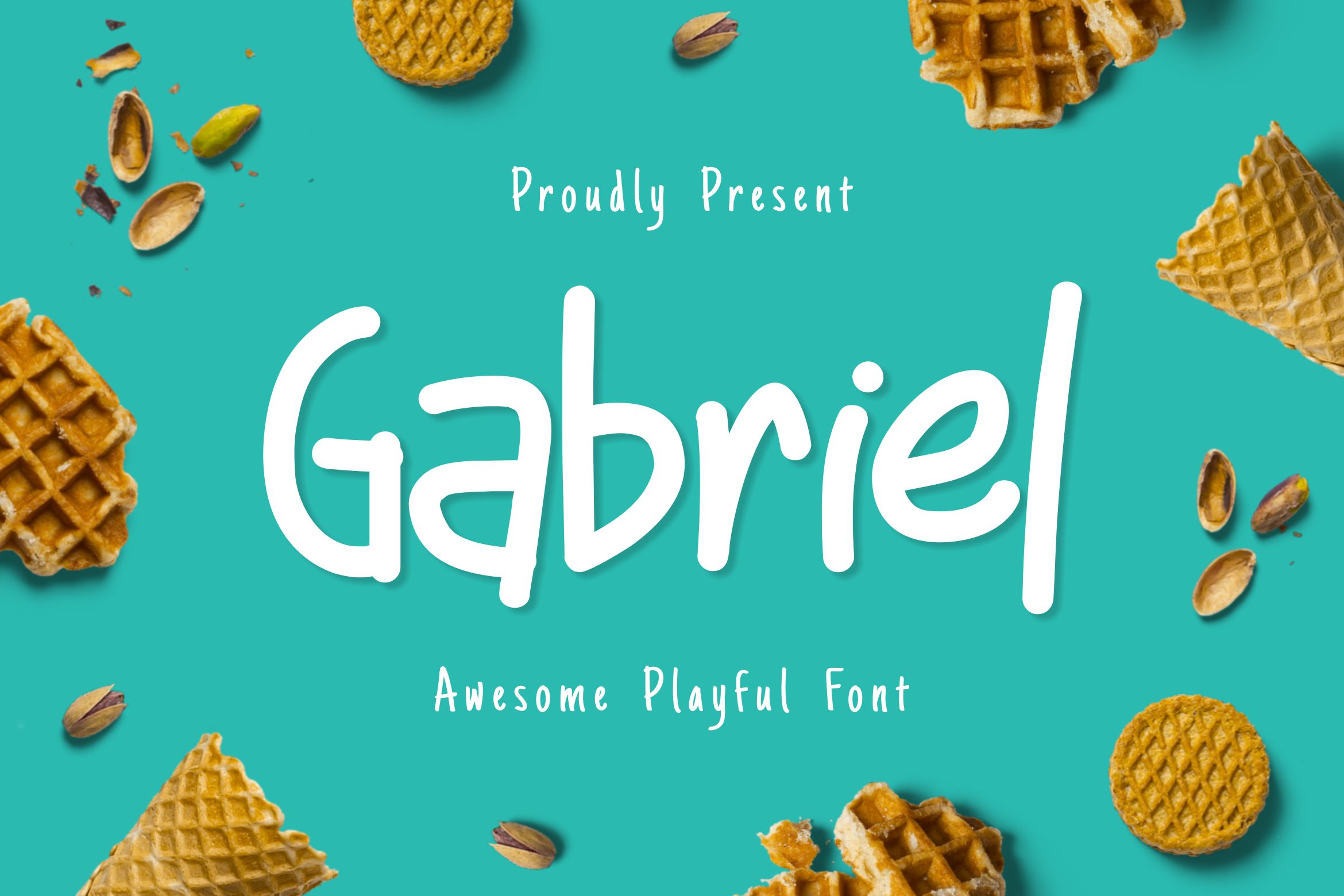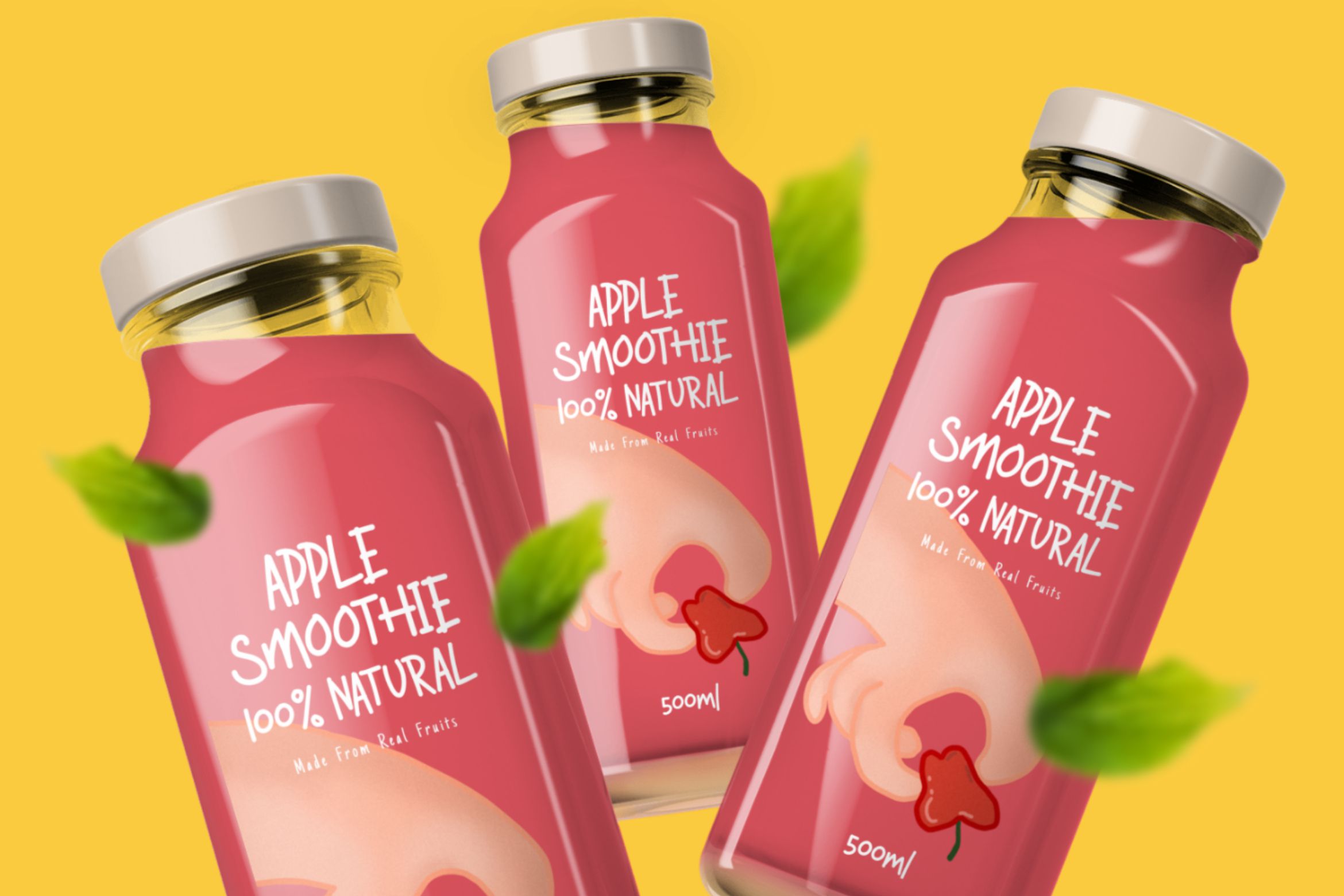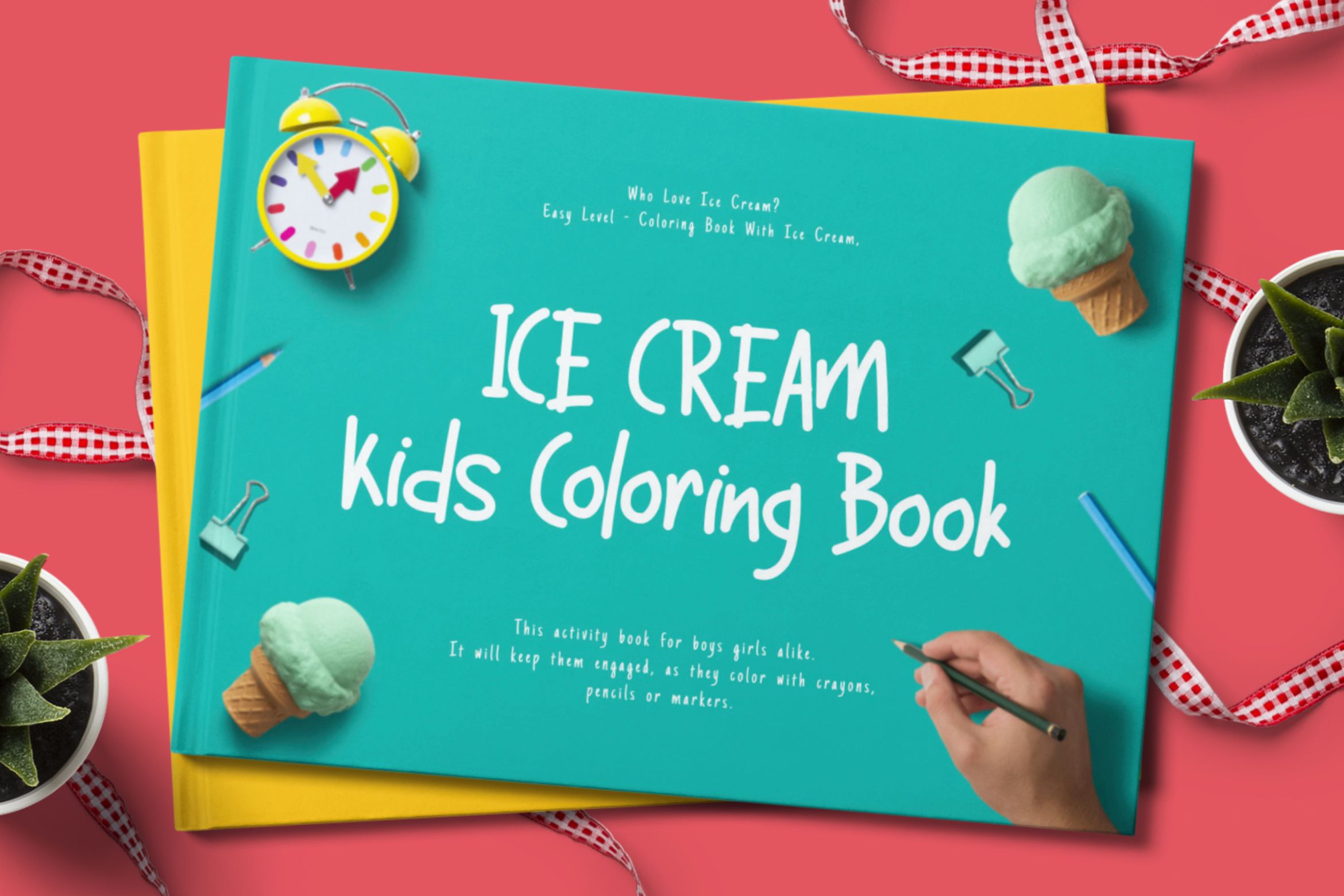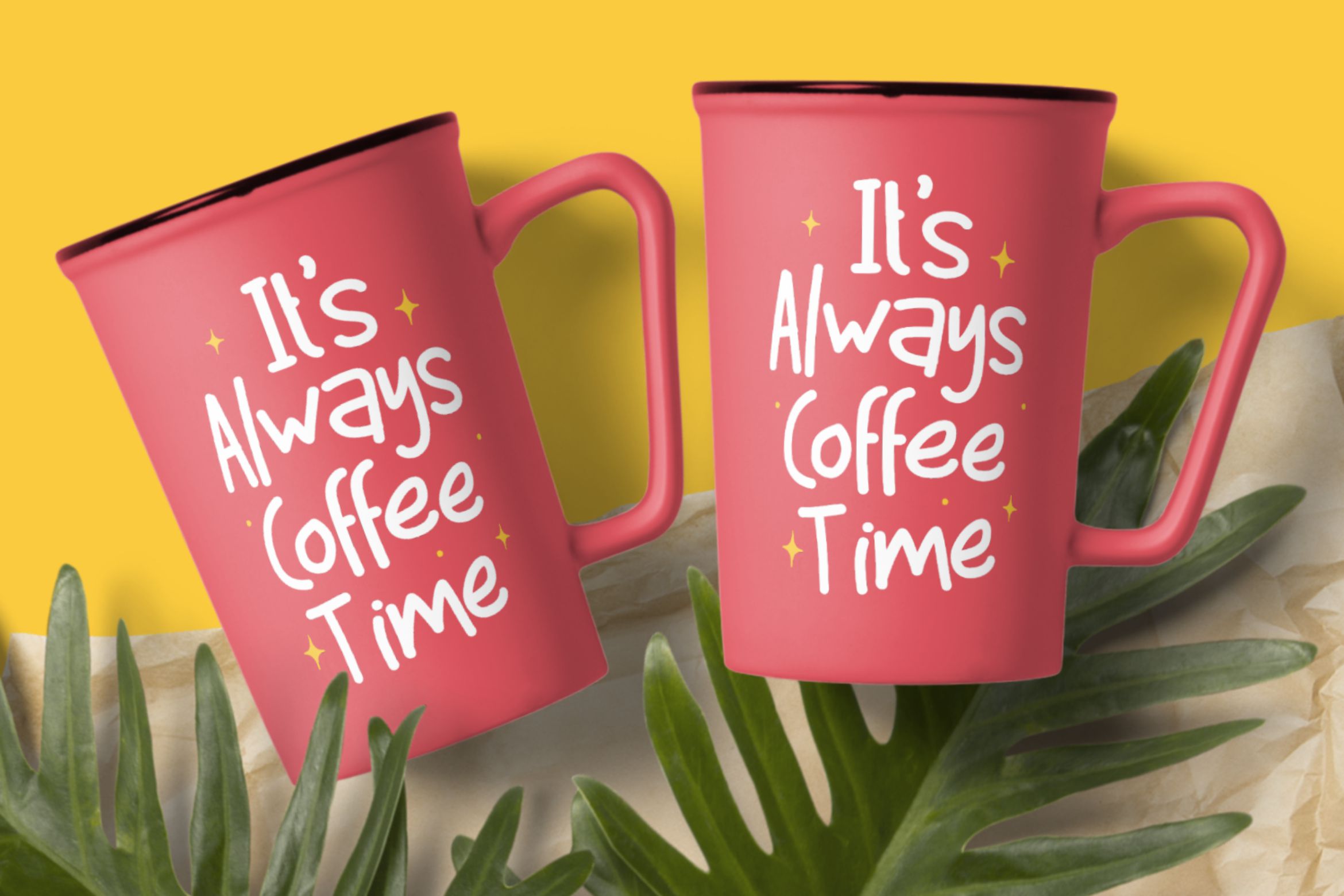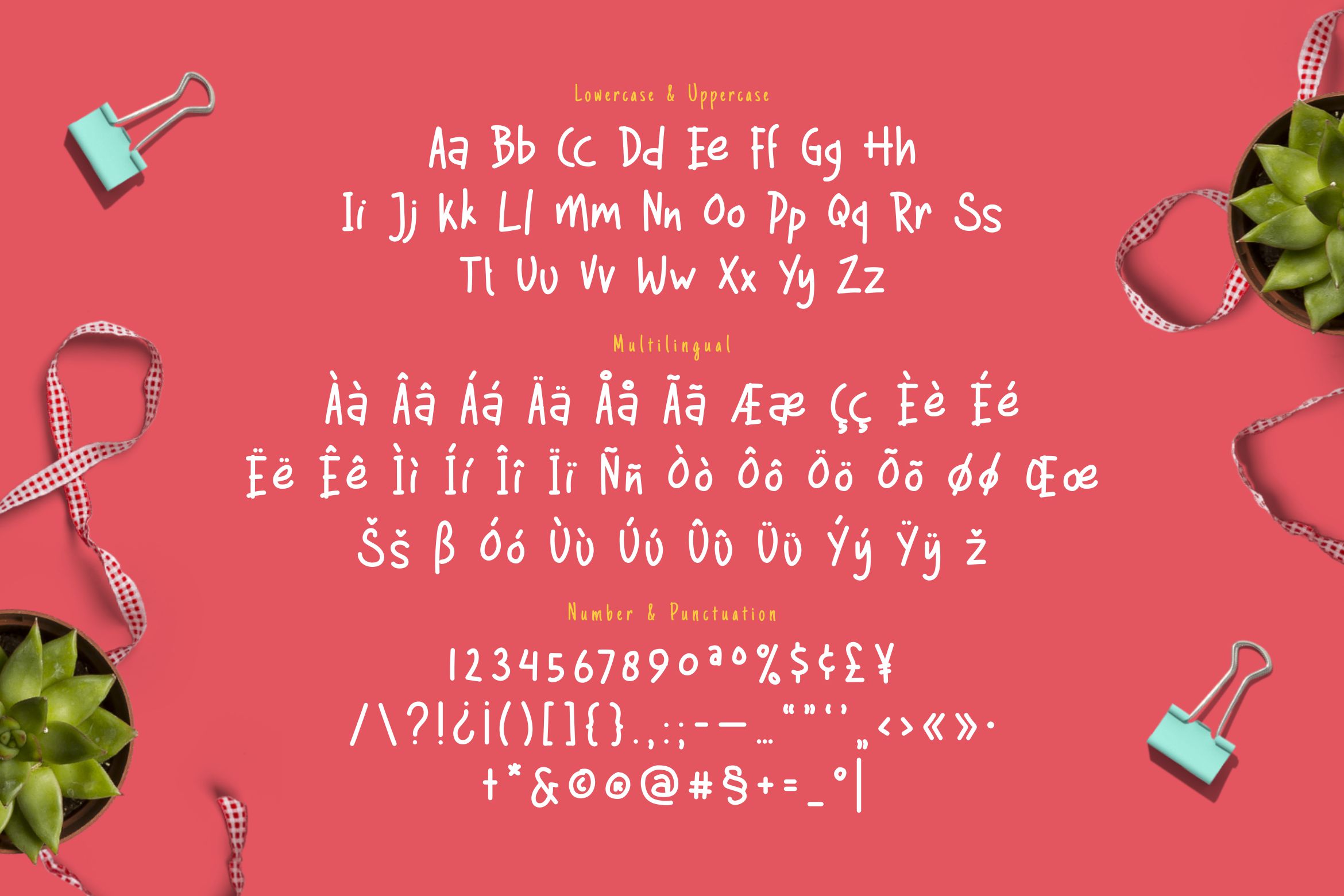
Gabriel is a cheerful and playful handwritten font crafted to bring a burst of personality to any design. Its rounded, bouncy letterforms reflect a casual and friendly vibe, perfect for projects that need a joyful, natural touch. From children’s books and food packaging to quote prints and lifestyle branding, Gabriel adds a sense of warmth and fun without sacrificing legibility.
This font supports multilingual characters, punctuation, and a full set of uppercase and lowercase letters, making it versatile for both personal and commercial uses. Whether you’re working on product labels, book covers, or social media content, Gabriel is designed to uplift and connect with your audience in a lighthearted, stylish way.
Gabriel